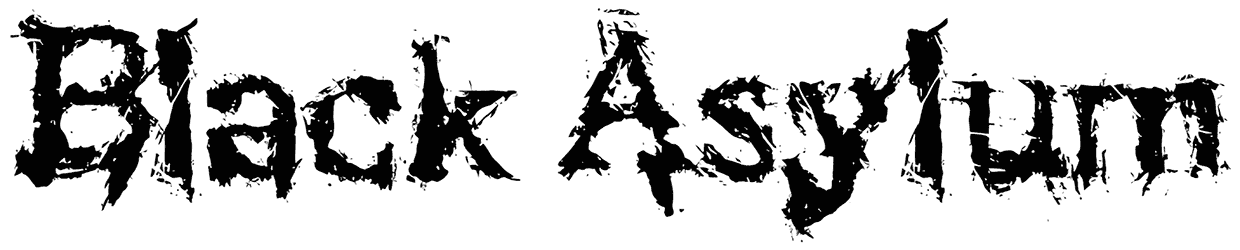
Black Asylum Font
It’s time to crank up your design lunacy and shock everyone. Black Asylum is a horror font with a distorted and huffy look that would be matched by all kinds of daunting projects, such as movie or game screens, graphics, flyers, or similar things. Black Asylum doesn’t consist of numerals and punctuation, but it still could be hair-raising.